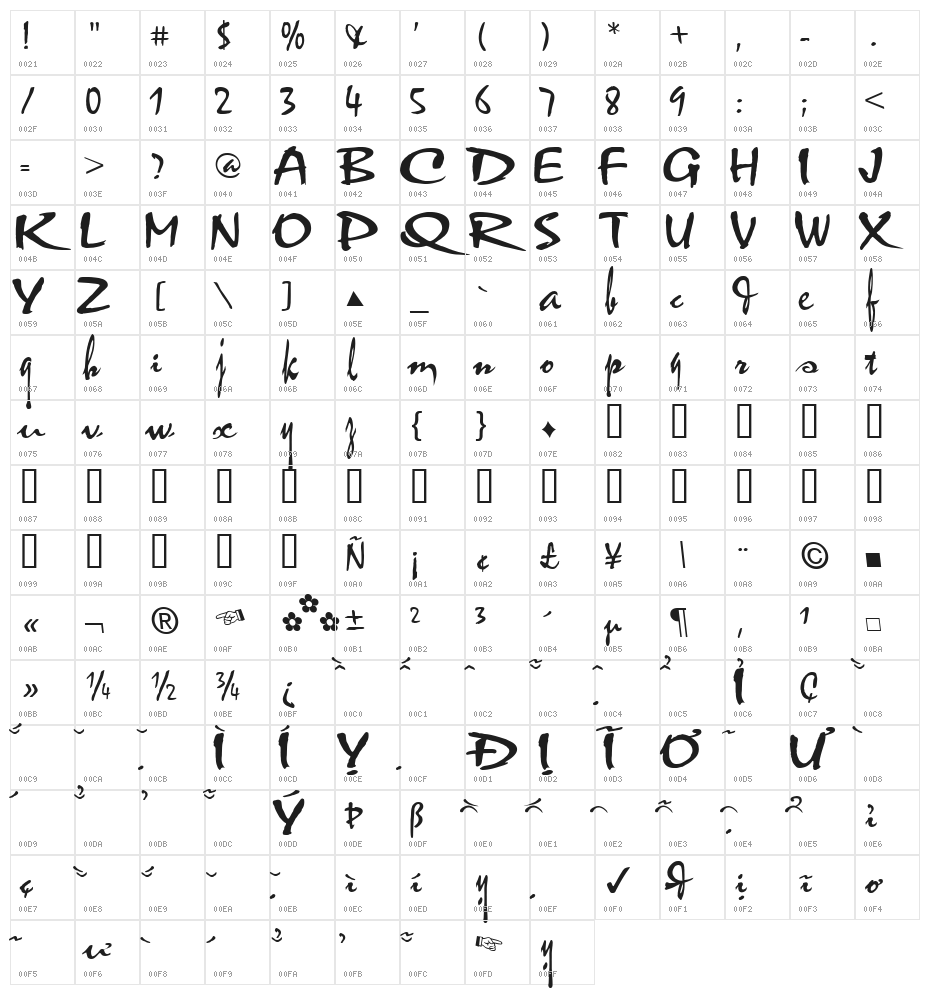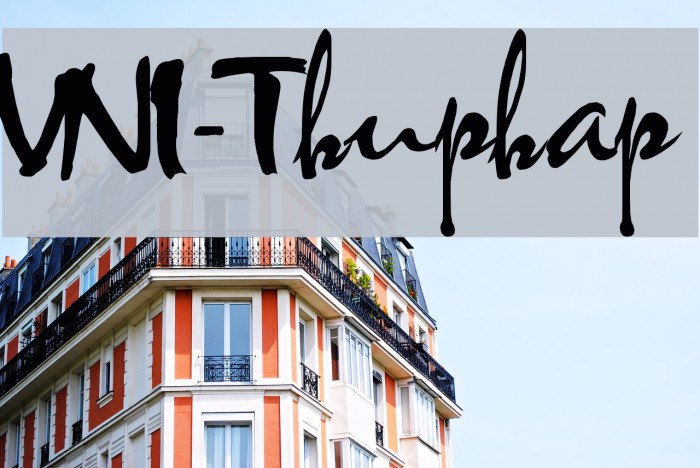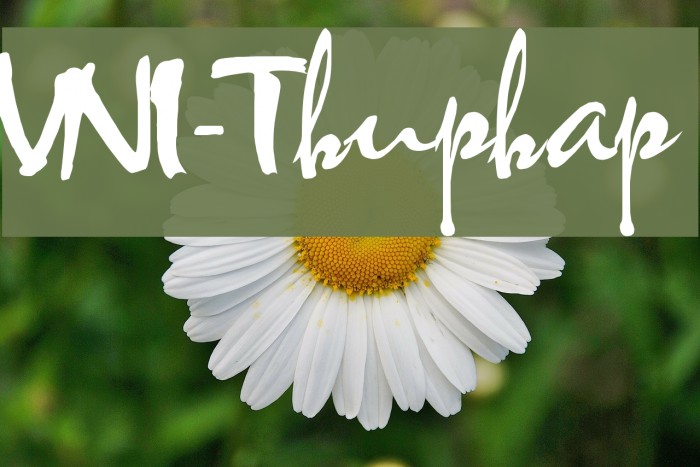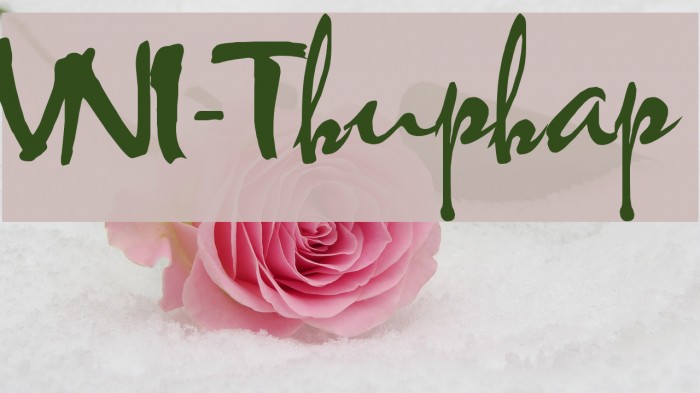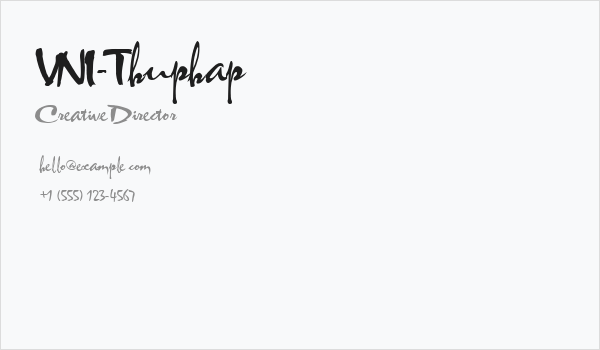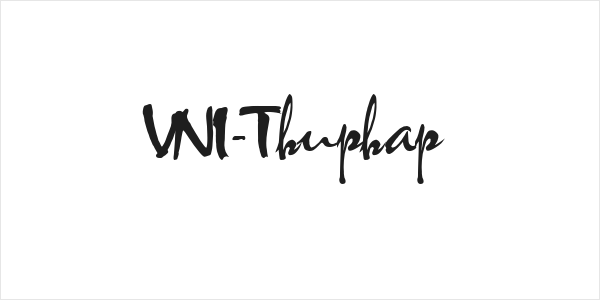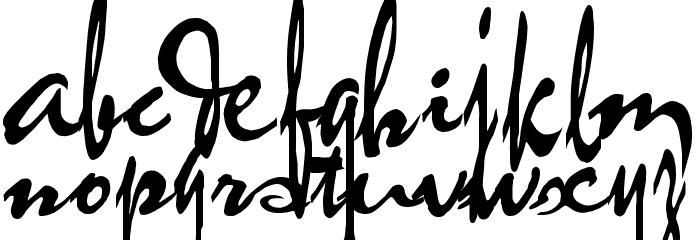
VNI-Thuphap Font
VNI-Thuphap Description
This font exhibits a dynamic and expressive style, reminiscent of traditional calligraphy with a modern twist. The strokes are bold and fluid, capturing a sense of movement and energy. Each character is crafted with a unique flair, featuring varying stroke widths that add depth and personality. The uppercase letters are particularly striking, with dramatic flourishes and a sense of grandeur. Lowercase letters maintain the same fluidity, offering a harmonious blend of elegance and readability. Numbers and special characters are equally expressive, ensuring consistency across all elements. This font is ideal for projects that require a touch of sophistication and artistic flair.
| Proposed Projects | Ideal for wedding invitations, artistic posters, branding materials, and any project requiring a sophisticated, handwritten touch. |